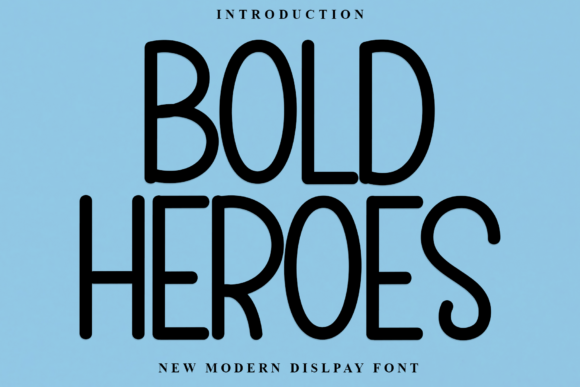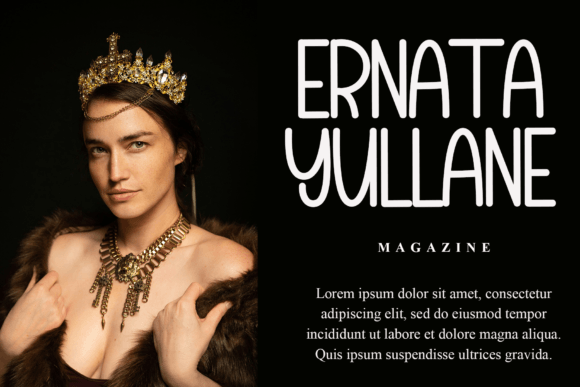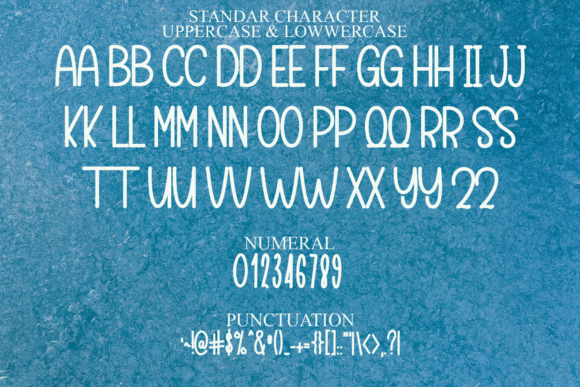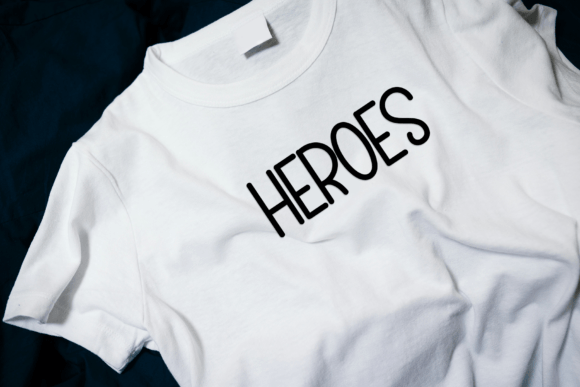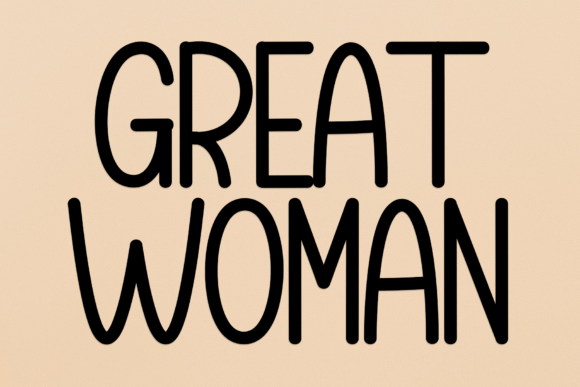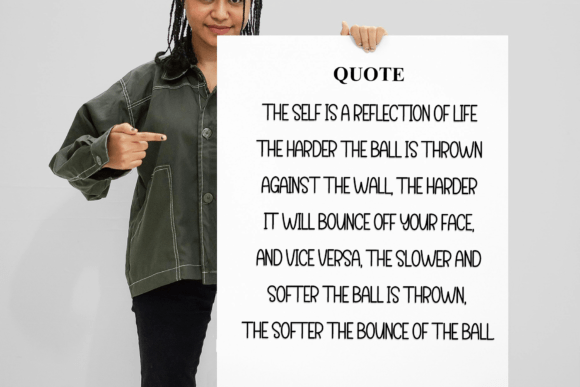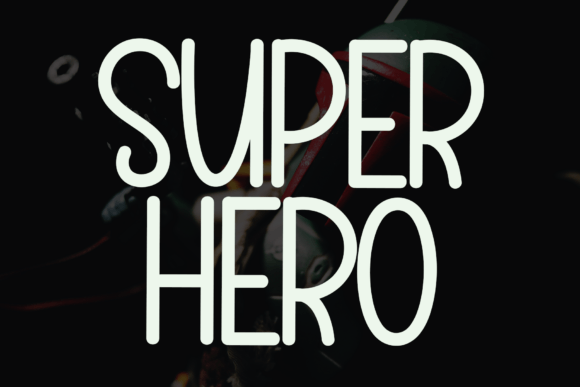
Unlock the Power of Bold Heroes Font
Have you ever found yourself staring at a blank canvas, waiting for the perfect font to bring your creative vision to life? It’s a moment we’ve all been in, searching for that elusive combination of style and elegance to make our designs truly shine. For designers, the right font can be the difference between a good design and a great one.
Enter Bold Heroes Font, a stylish and sophisticated typeface that exudes warmth and creativity. Its fluid strokes and natural flow make it perfect for adding a personal touch to invitations, branding, or social media. Whether you’re a seasoned designer or just starting out, Bold Heroes Font is a valuable addition to your toolkit, offering a unique and captivating look that’s sure to make your designs stand out.
Bold Heroes Font Key Features
- Font Style: A bold, sans-serif font with a heroic and adventurous feel.
- Characteristics: Unique characteristics include a bold, condensed design with rounded edges, making it easy to read and recognize at a glance.
Designer Review: Bold Heroes Font
First off, I want to say that I really love the bold, dynamic feel of the Bold Heroes Font. ✨ It’s perfect for creating attention-grabbing headlines and titles that really stand out on a page. The font is well-suited for action-packed or adventurous themes, and the various weights and styles make it easy to create a cohesive visual identity.
The Bold Heroes Font has some great features that make it a pleasure to work with. Here are some of the things I like:
- Wide range of weights and styles to choose from, including bold, light, and italic options.
- Great legibility, even at smaller font sizes.
- Works well in both digital and print applications.
That being said, there are a few limitations to consider. ⚠️ The font can feel a bit over-the-top or dramatic at times, which may not be suitable for more subdued or minimalist designs. Additionally, some of the characters may not be as well-formed or consistent as others.
Overall, I think the Bold Heroes Font is a great choice for designers who want to add some excitement and energy to their projects. While it may not be suitable for every design, it’s definitely a versatile and effective font that can add a lot of visual punch to your work.
Tips for Getting the Most Out of Bold Heroes Font
For best results, use the Bold Heroes Font in bold or italic styles to add emphasis to your text.
Experiment with different font sizes and combinations to create a unique look.
The Bold Heroes Font is perfect for:
- Creating eye-catching headlines and titles.
- Adding a touch of boldness to your branding and marketing materials.
- Designing posters, flyers, and other promotional materials.
Alternatives to Bold Heroes Font
Great Vibes Font is a modern, elegant script font that is ideal for creating eye-catching headings and titles. It has a similar energetic feel to Bold Heroes Font, but with a more refined and sophisticated look.
Use Great Vibes Font for: Titles, headings, and logos that require a touch of elegance and sophistication.
Comparison: While Bold Heroes Font has a more rugged and playful feel, Great Vibes Font is more refined and sophisticated.
Pacifico Font is a beautiful, elegant script font that is perfect for creating a sense of calm and serenity. It has a similar relaxed feel to Bold Heroes Font, but with a more refined and polished look.
Use Pacifico Font for: Titles, headings, and body text that require a sense of calm and serenity.
Comparison: While Bold Heroes Font has a more energetic and playful feel, Pacifico Font is more relaxed and refined.
Q: What is the recommended font size and line height for optimal readability with Bold Heroes Font?
The recommended font size and line height for optimal readability with Bold Heroes Font is a minimum of 14px font size and 1.5 line height. However, this can be adjusted depending on the specific design requirements and the intended use of the font. It’s also worth noting that the font’s x-height and letter spacing can also impact readability, so these should be taken into consideration when designing with the Bold Heroes Font.